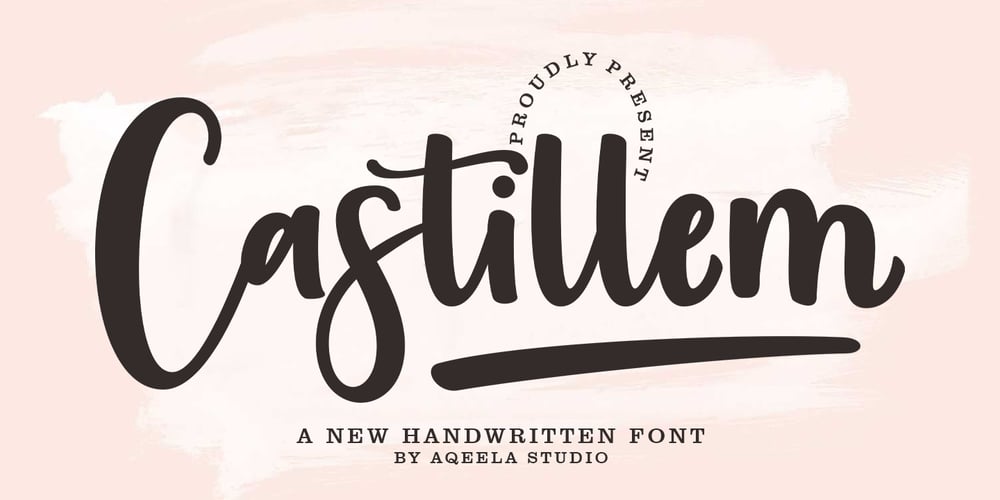
Castillem Font Family was designed by Muhammad Nasir and published by Aqeela Studio. Castillem contains 2 styles and family package options. Castillem is a trendy handwritten font with a contemporary atmosphere and impeccable form, inspired by timeless classic calligraphy. It will add elegance and class to any of your design projects.